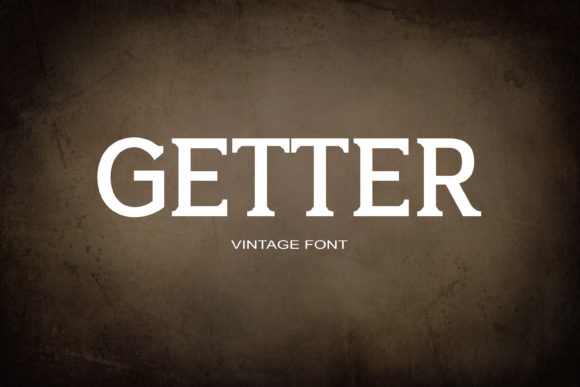
Get ready to embark on a typographic journey with Getter Font, the extraordinary serif typeface that will transform your designs into timeless masterpieces. Crafted with meticulous precision by the talented artisans at DmDesignsStoreArt, Getter Font is a testament to the enduring charm of classic typography.
Indulge in the allure of Getter's bold and confident strokes, reminiscent of the golden age of print. Its graceful curves and sharp serifs evoke a sense of nostalgia, while its modern sensibility ensures its relevance in contemporary designs. Whether you're a seasoned designer or just starting, Getter Font is your gateway to creating designs that captivate and inspire.
Step into a world where elegance and versatility intertwine. Getter Font's diverse range of weights and styles empowers you to express your creativity limitlessly. From delicate and airy to bold and commanding, Getter adapts seamlessly to any design aesthetic. Craft logos that exude authority, headlines that demand attention, and body text that invites readers to delve deeper into your content.
With Getter Font, you'll discover a treasure trove of possibilities. Design vintage-inspired posters that transport viewers to a bygone era, create elegant wedding invitations that exude timeless romance, or craft eye-catching social media graphics that capture the essence of your brand. The possibilities are endless, bound only by the limits of your imagination.